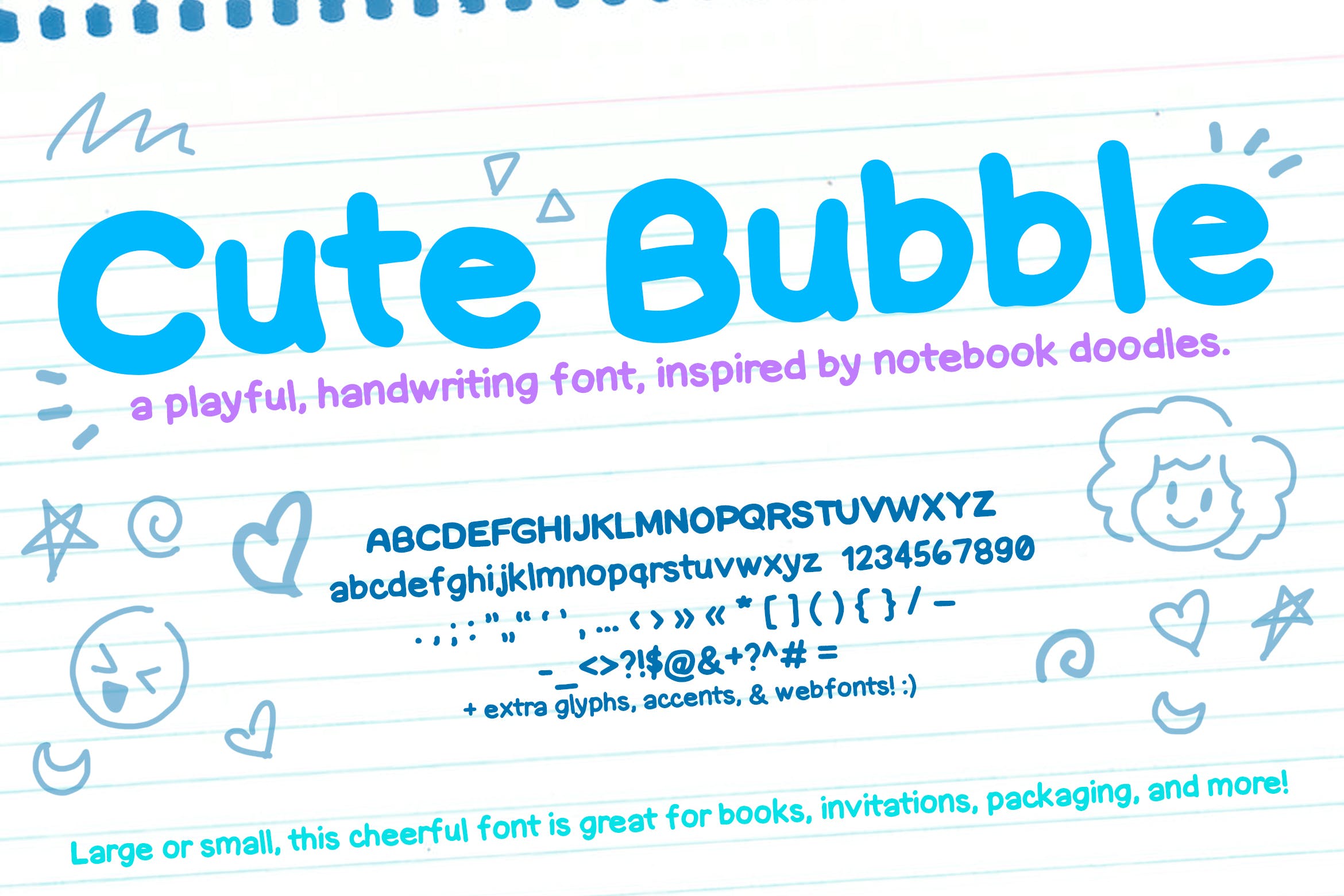
Introducing Cute Bubble Font, a cute handwriting font with chunky, fun flare!
It’s got a lot of notebook or journal inspiration, and could be a great choice if you’re looking for aesthetic fonts for hand drawn or personal items.
Every letter was lovingly drawn by me. I was thinking about notebook fonts, handwritten fonts, and hand drawn type when I experimented with this design. It reminds me of some of the writing I’d do in my childhood notebooks. 🙂 It could be cute as a classroom font, homework font, or even as a childrens book font! Web fonts are also included, for your convenience.